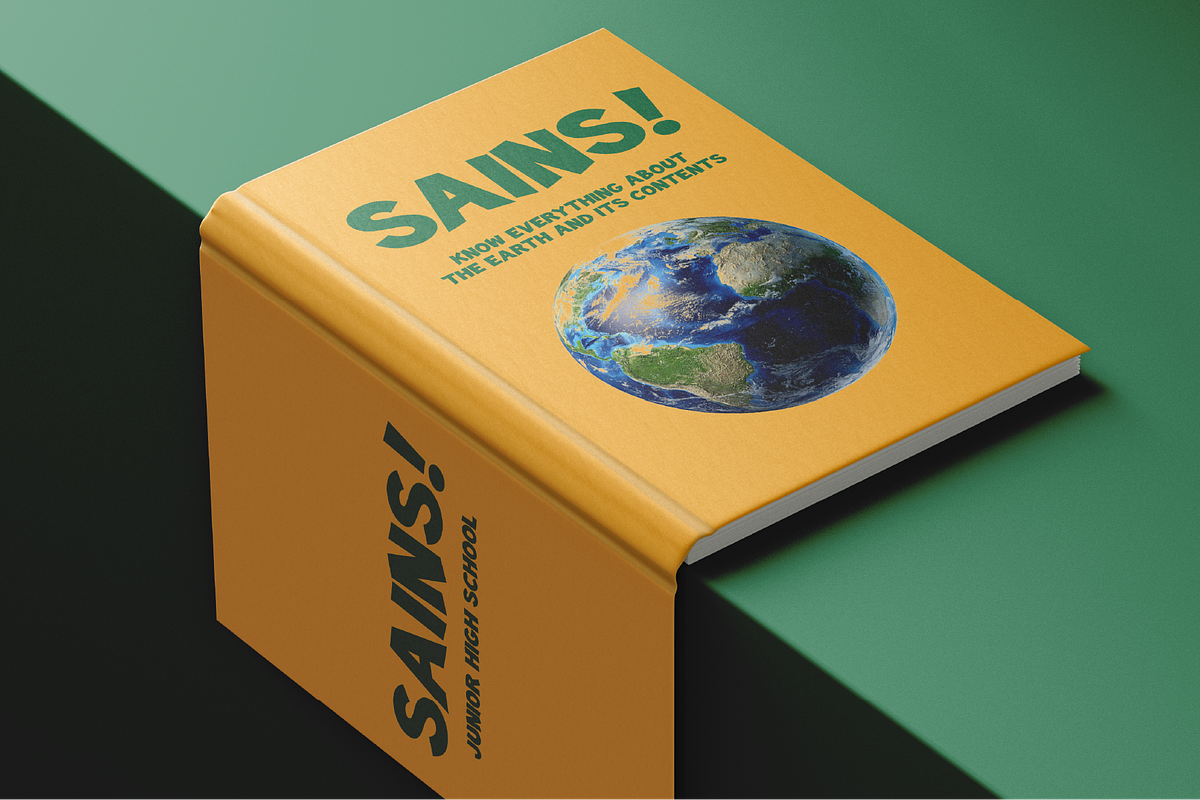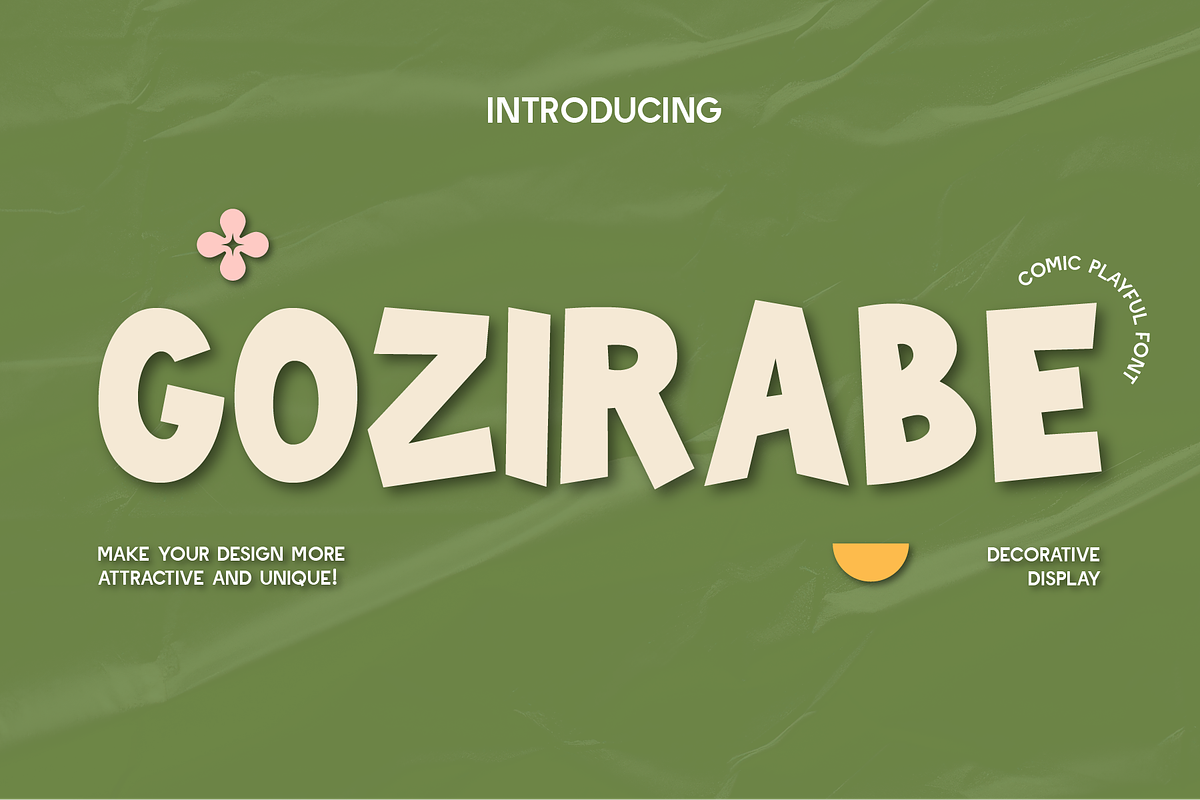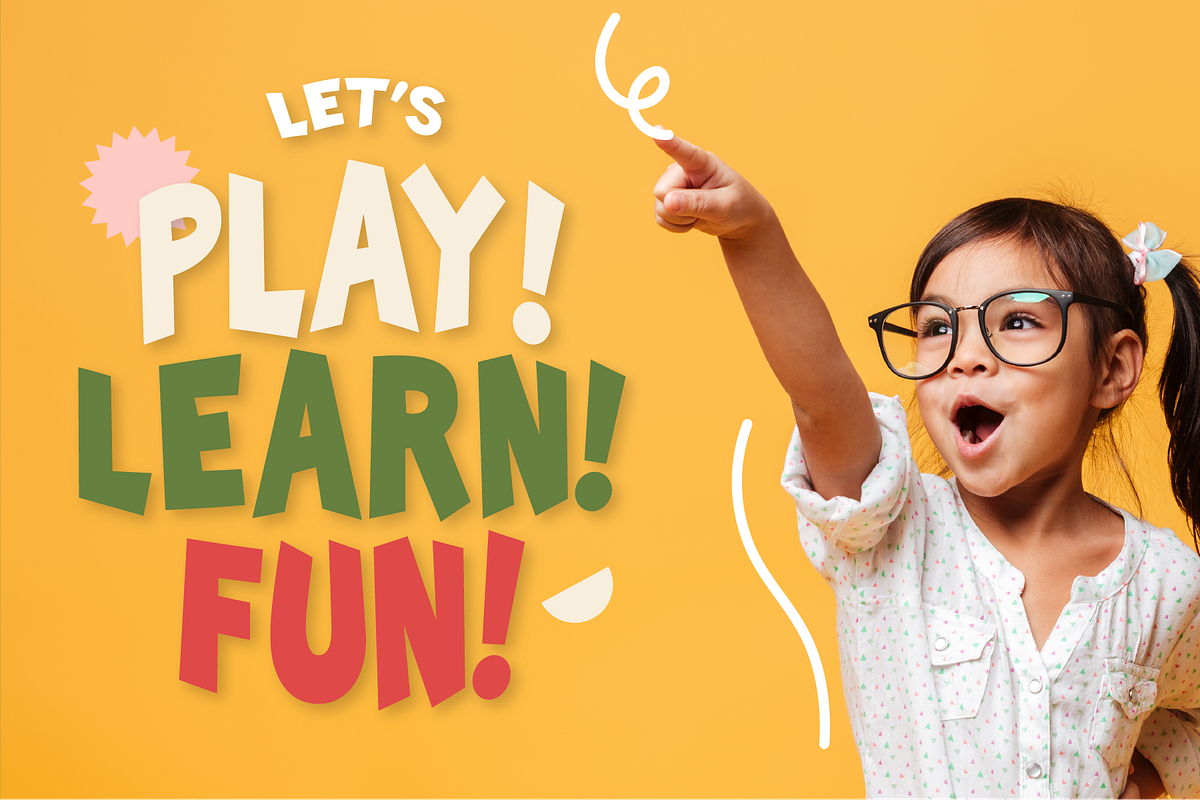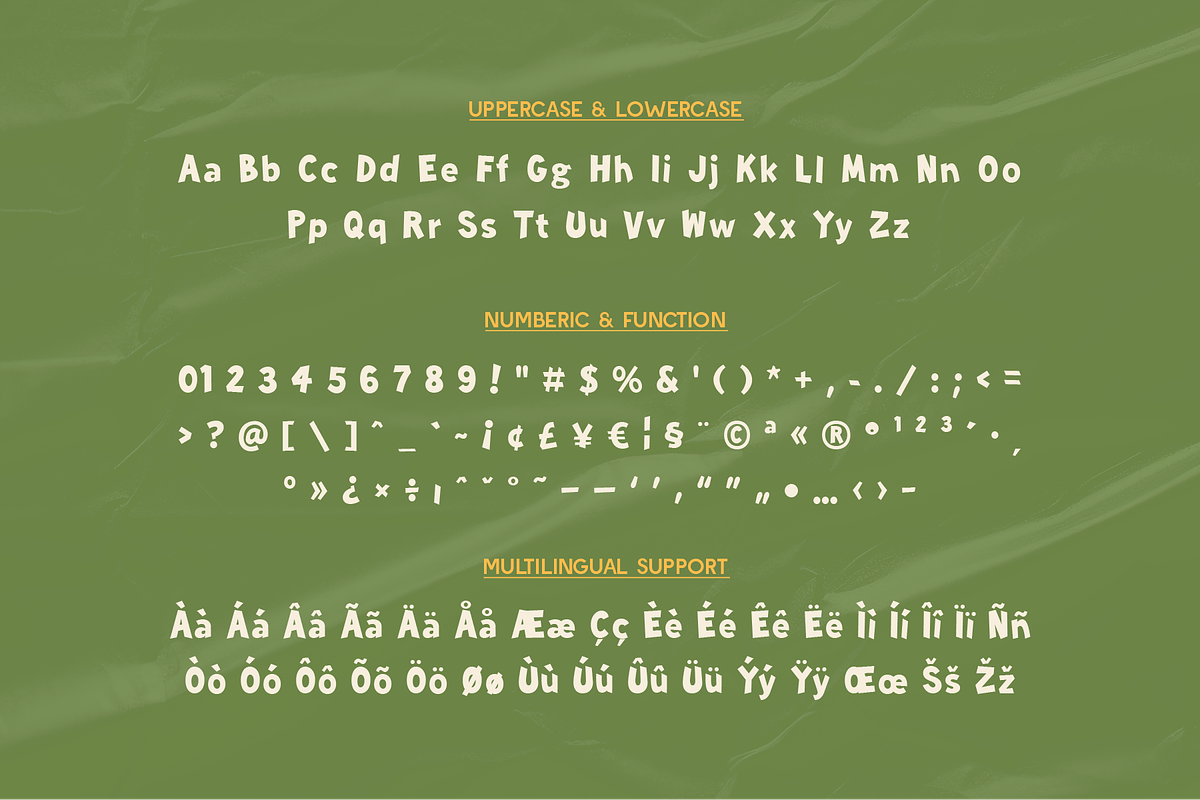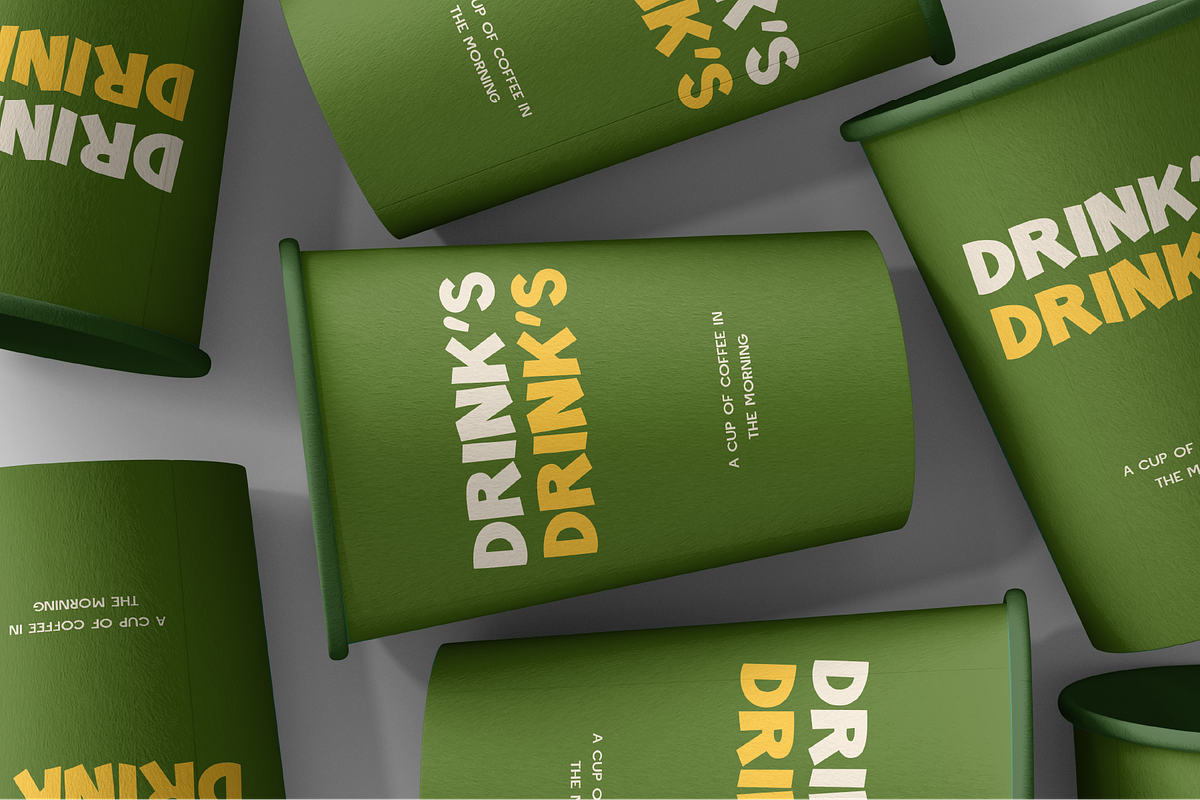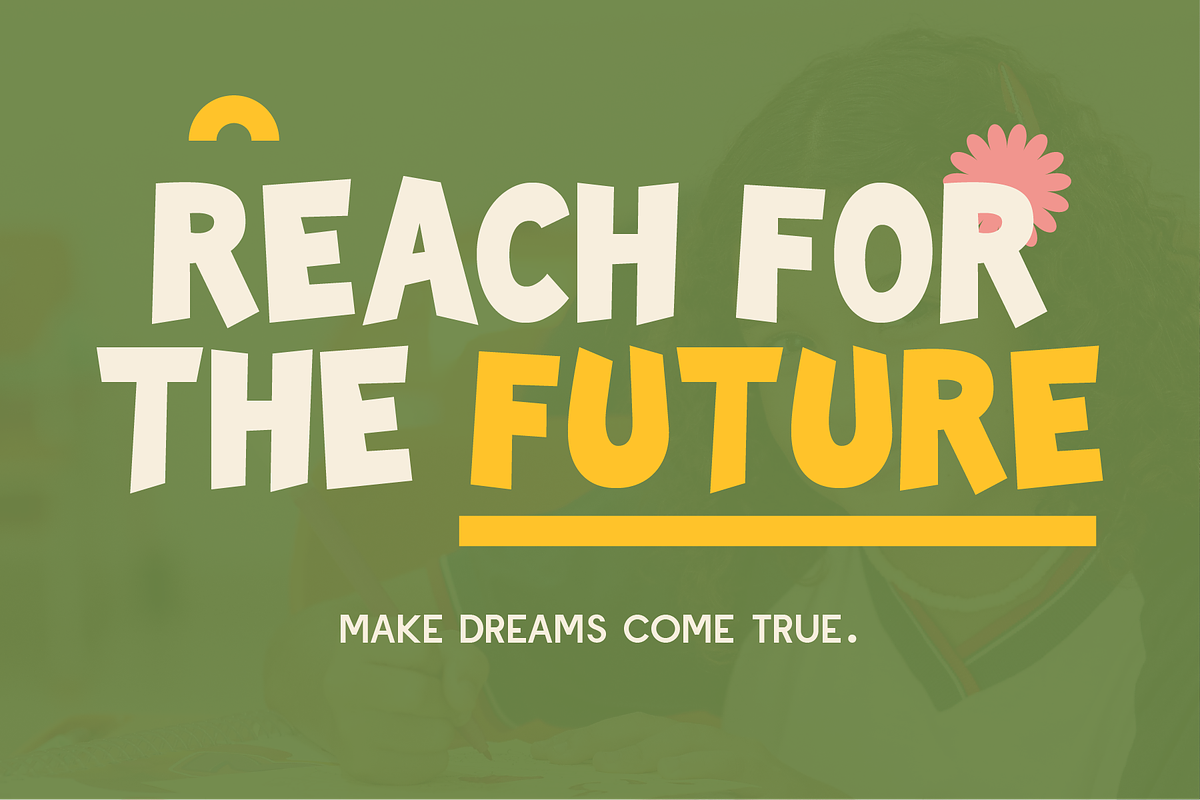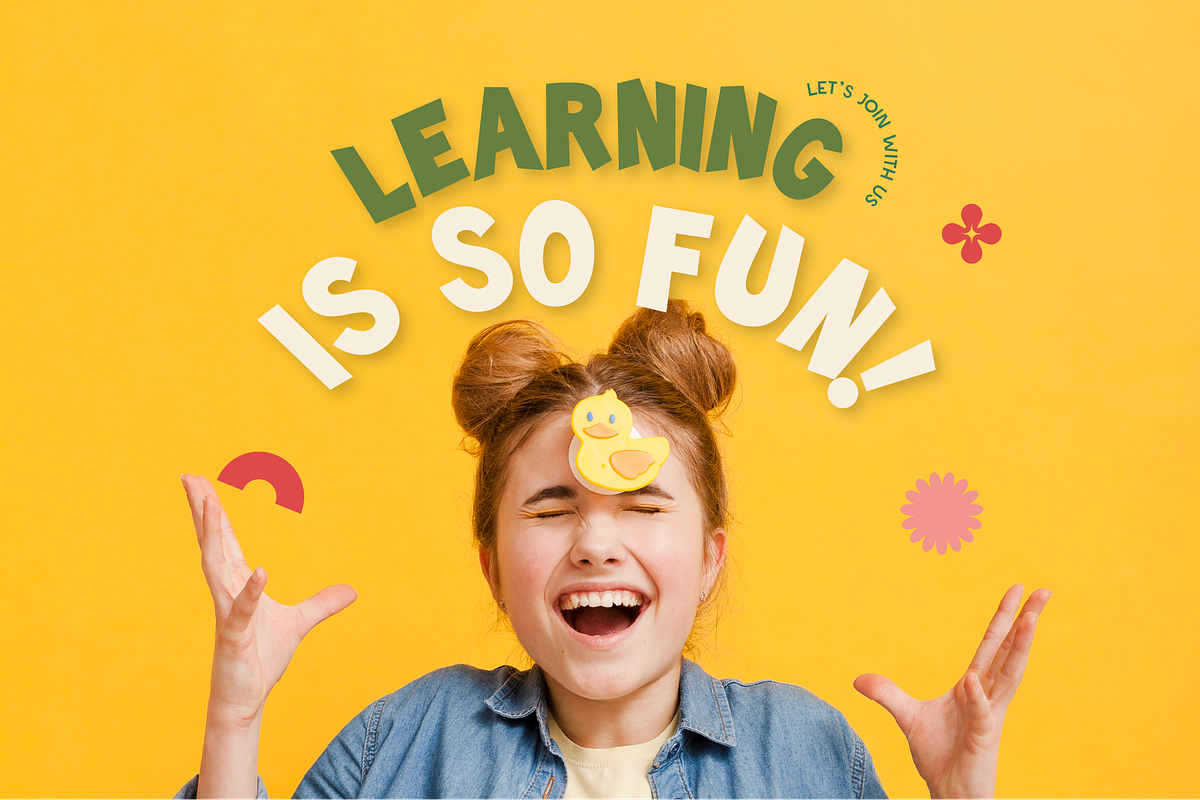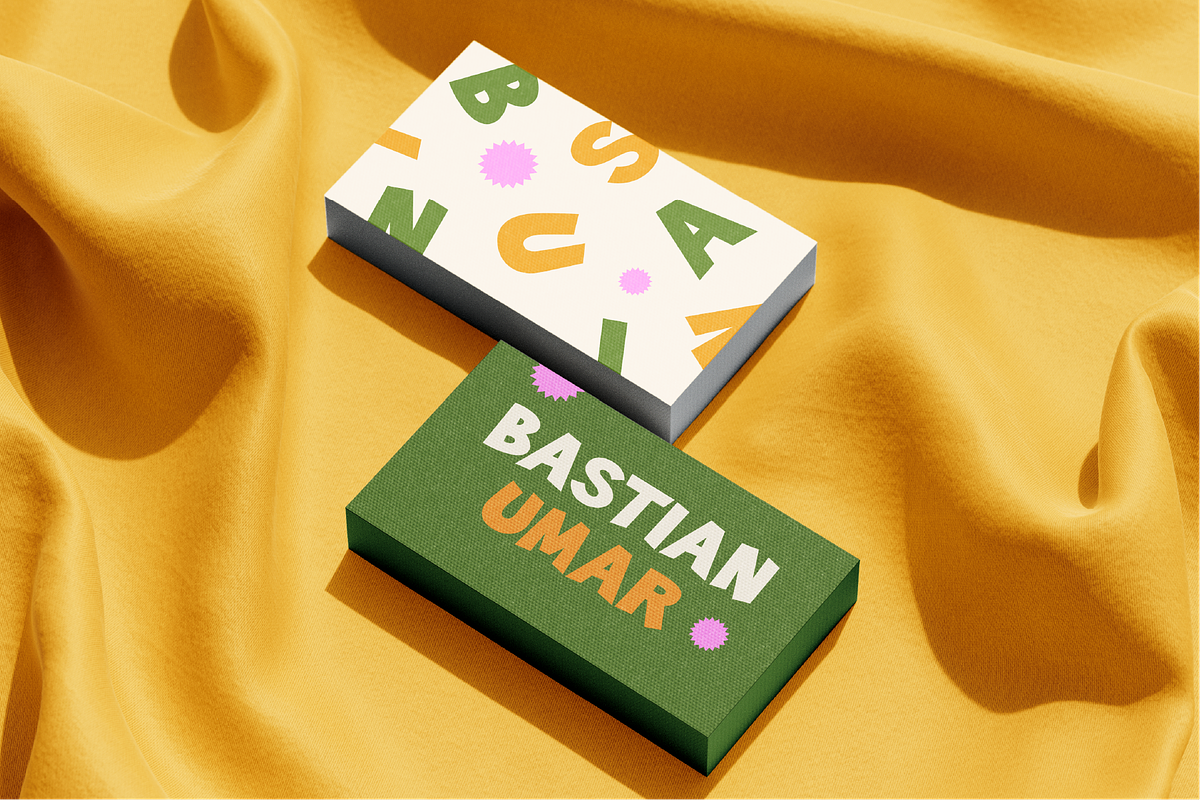
CF Gozirabe - Quirky Cartoon Display
Gozirabe is a vibrant decorative cartoon typeface designed to bring joy and quirky vibes to any project. With sharp edges and an irregular baseline, it captures a playful energy, making it ideal for projects that aim to be lighthearted and fun. The unique balance between its sharp forms and carefree structure gives Gozirabe a dynamic appearance, perfect for children's books, comics, or playful branding.
- Regular Quirky Style